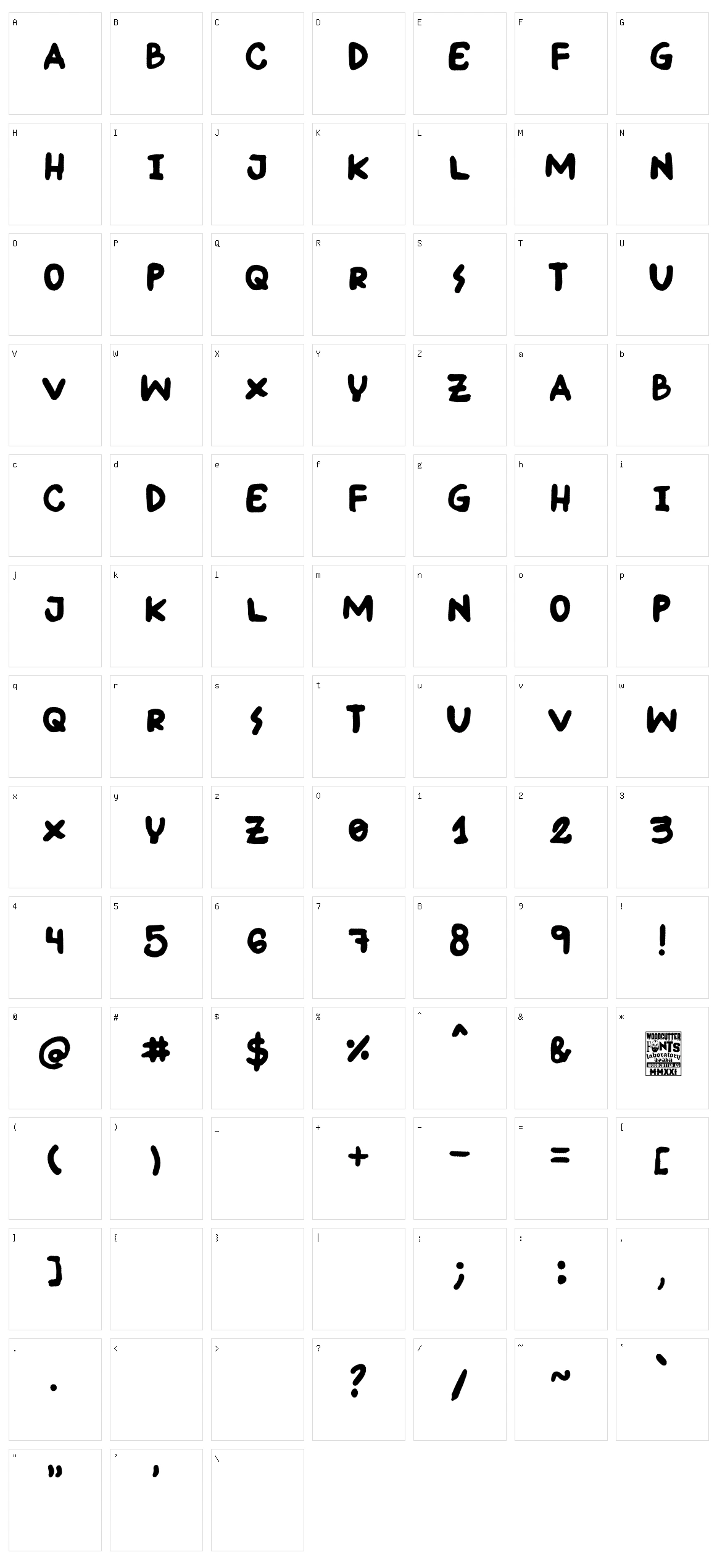
The free font Little Caudillo is carefully designed by Woodcutter, showcasing a thoughtful balance of creativity and usability and falls under the Cartoon font style. When you download the ZIP file, it contains only 117.02 KB of font files, making it lightweight and quick to download. Please review the license details below to understand permitted usage and distribution rights. If license information is not available, we recommend using this font for personal projects only or contacting the author directly for commercial usage permissions.